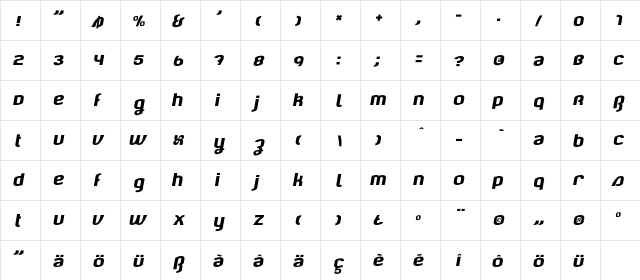
Claster BETAitalic Font Preview
Claster BETAitalic
Design Context for Claster Typeface
Claster takes a measured approach to typography — its balanced proportions and neutral character make it a reliable workhorse for both digital and print work. The dynamic lean of this cut emphasises speed and emphasis in any layout.
Pro Tip: Use Claster for emphasis, pull quotes, and subheadings where its slanted energy can add rhythm to the layout.